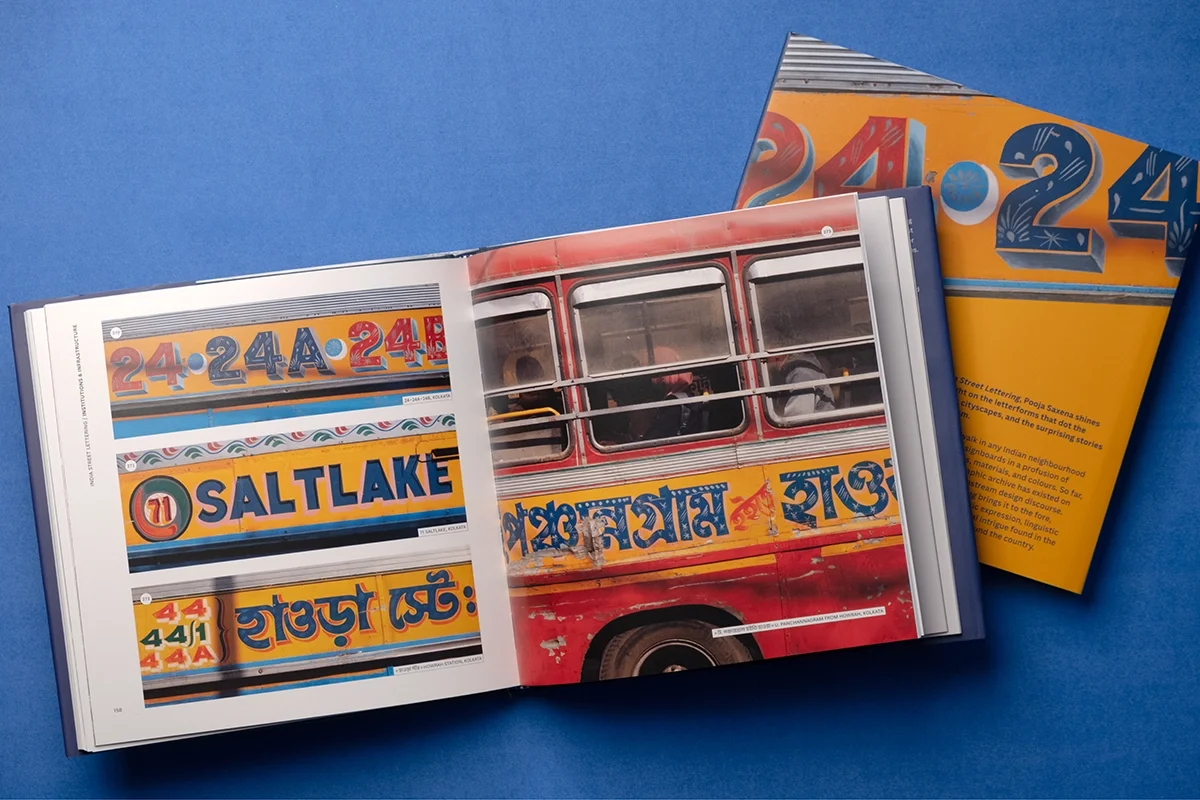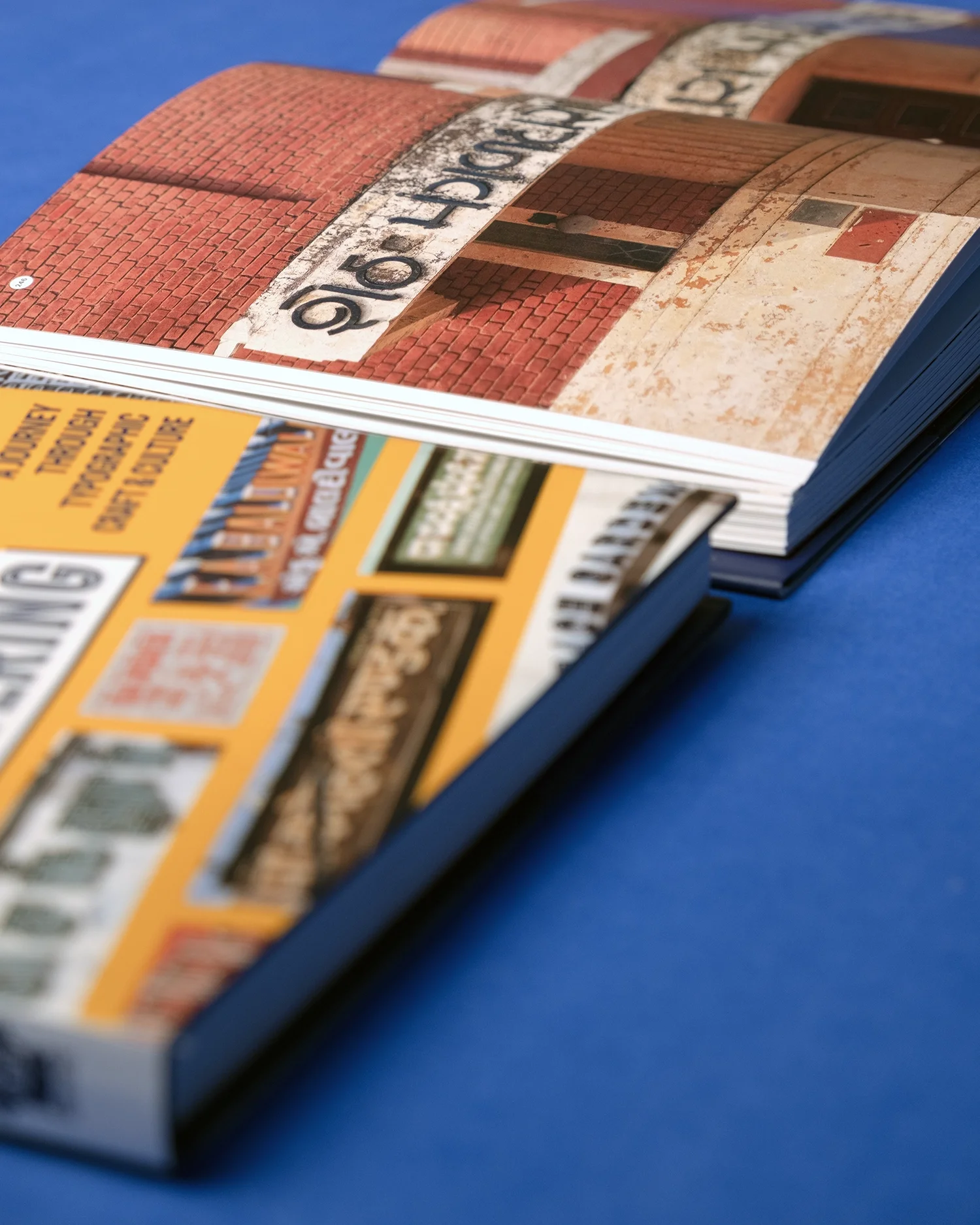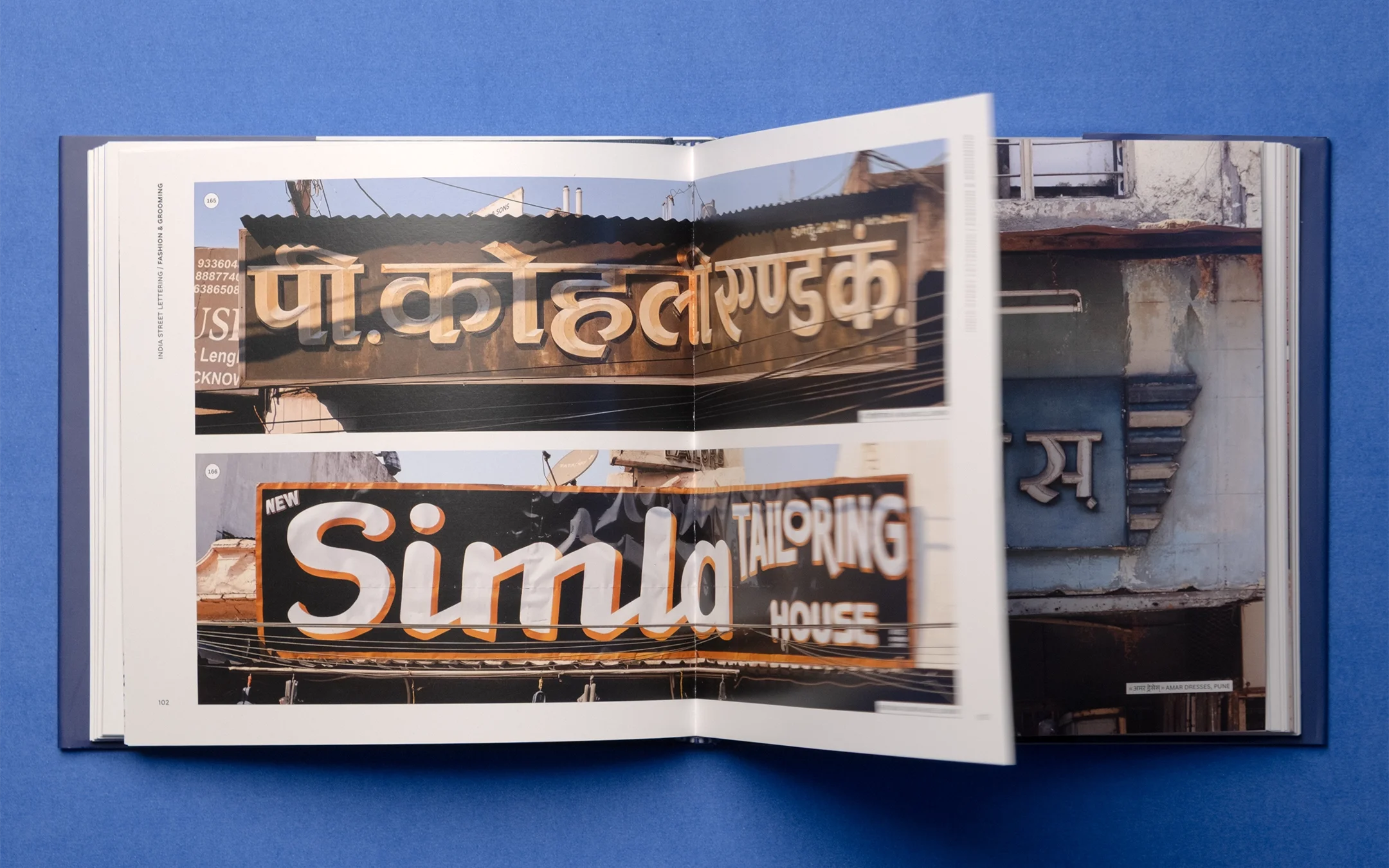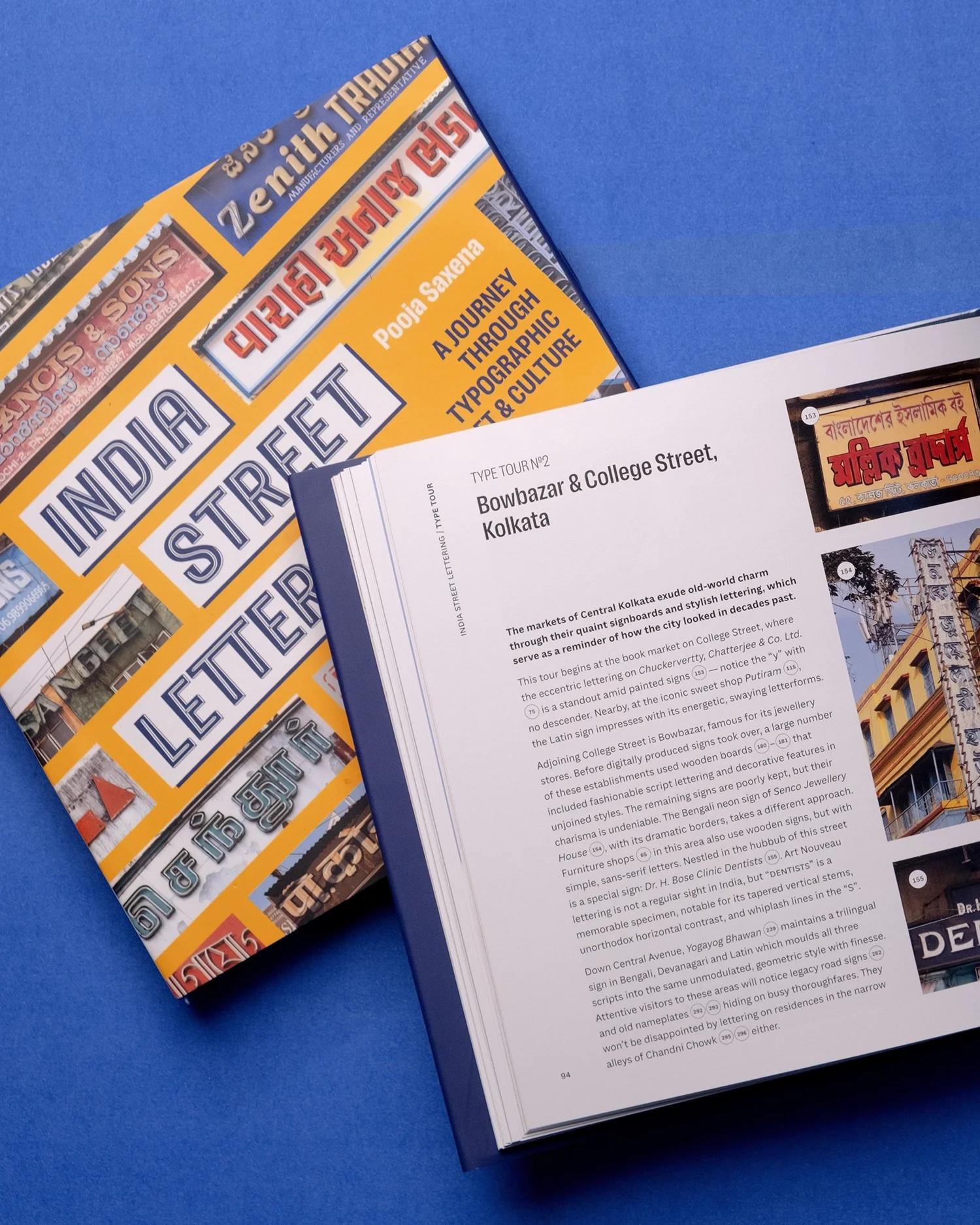
India Street Lettering — a pioneering book that shines a spotlight on the country’s urban letterforms, and the stories behind them.
In 2026, Blaft Publications released my first book, India Street Lettering: A Journey Through Typographic Craft & Culture. Drawing from a decade of documentation and research (which is available online as a living archive of the same name), the book is a showcase of the country’s lively public lettering landscape, and an emphatic call to give this artistry the place it deserves in the design canon.
The volume is divided into five chapters that scrutinise how signs are imagined — on shops, restaurants, cinemas, banks, post offices, even homes — and the role that typography and cultural history play in their design. Together, the chapters feature over 300 photographs from 17 cities and in 13 scripts, painting a vivid picture of urban neighbourhoods in India. Accompanying this wide ranging collection are stories of local signmakers, which give a rare peek into their design process, and how they view their vocation in a time of rapid technological change. The book also includes four itineraries for the intrepid typographic traveller: guides for exploring the lettering gems of Kolkata, Chennai, New Delhi, and Mumbai.
In addition to being author and photographer, I also designed the book, including custom lettering the cover and chapter titles based on a sign on a shop near Mapusa Municipal Market in Goa.
India Street Lettering: A Journey Through Typographic Craft & Culture was included in The Nod’s list of most exciting art books of 2026, and author Robin Sloan described the volume as “[an] incandescent compendium [that] is a required purchase for anyone interested in typography, graphic design, and/or urban space.”